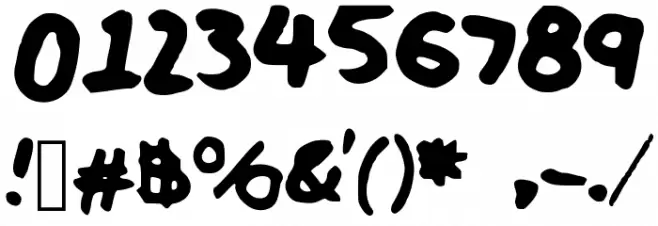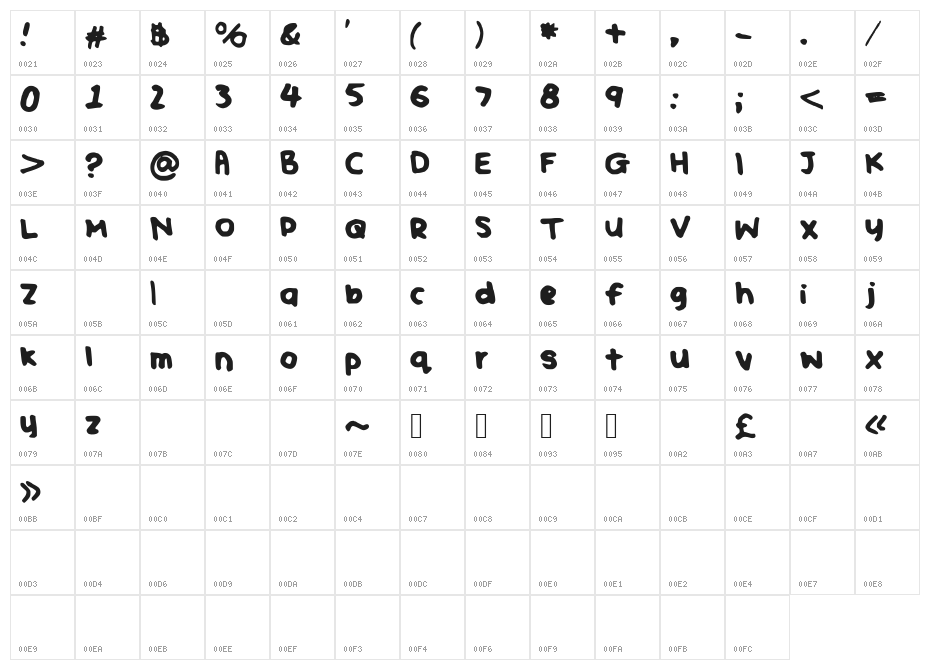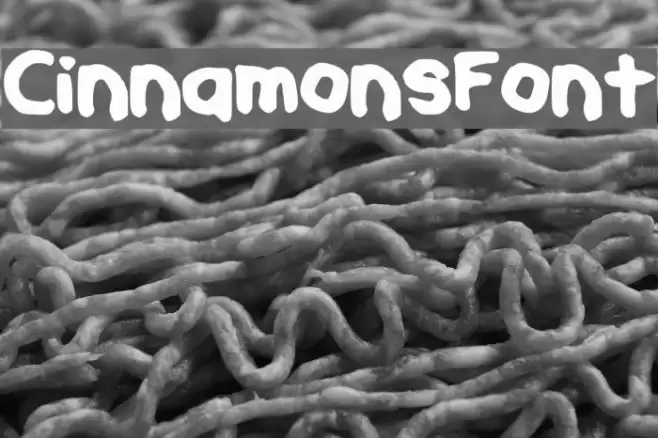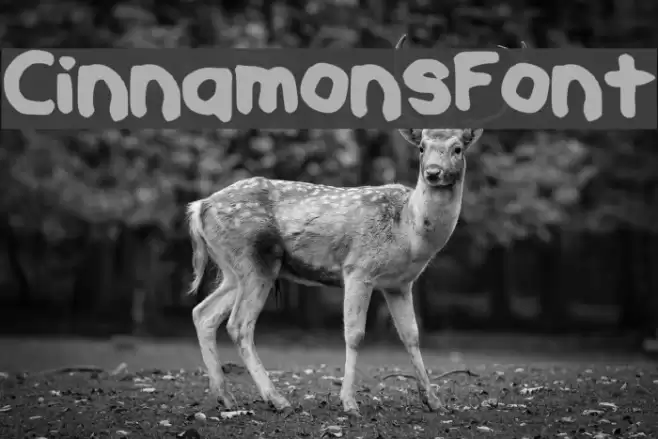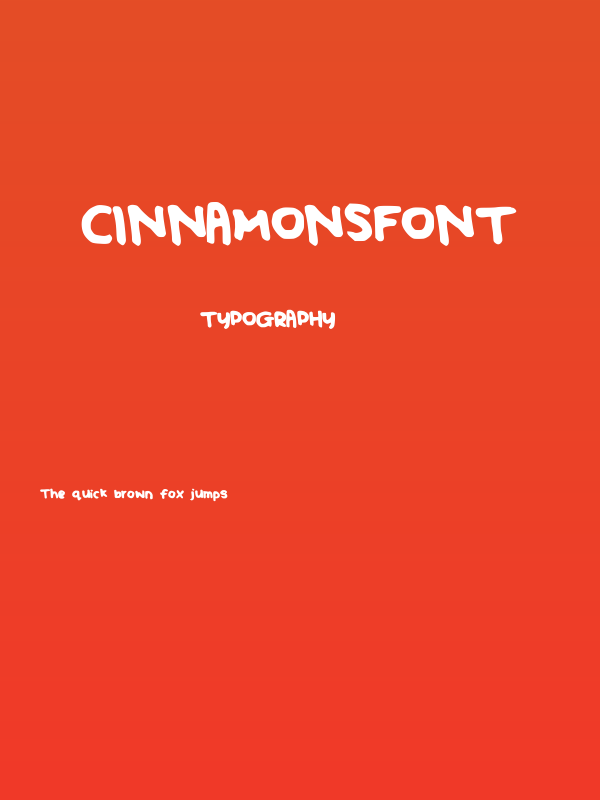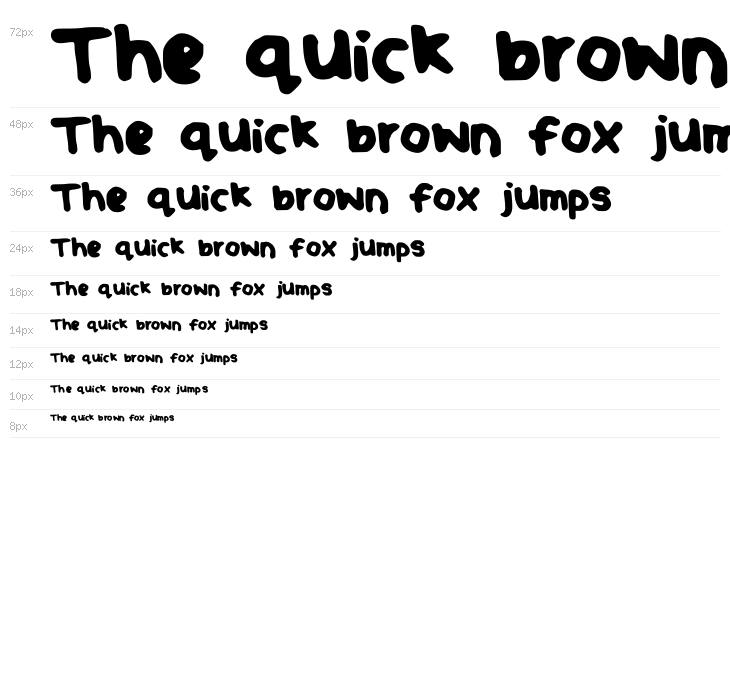
CinnamonsFont Font
CinnamonsFont Description
This playful and bold font features thick, rounded strokes that give it a friendly and approachable appearance. The characters are slightly irregular, adding a whimsical touch that makes it stand out. The uppercase and lowercase letters maintain a consistent style, with a noticeable emphasis on curves and rounded edges. Numbers and special characters follow the same design principles, ensuring a cohesive look across all elements. This font's unique style makes it ideal for projects that require a fun and informal tone.